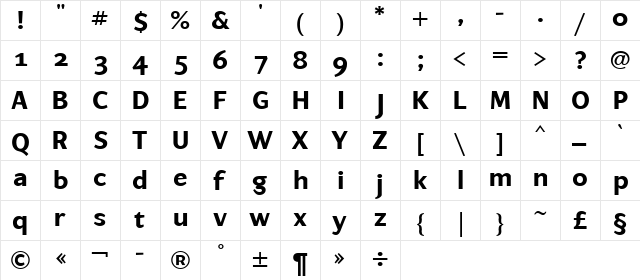
ArtemiusSans SN TT Bold
Design Context for ArtemiusSans SN TT Typeface
ArtemiusSans SN TT offers clean, dependable letterforms without strong stylistic allegiance, making it a practical choice for designers who need flexibility. Its bold stroke weight gives it real presence on the page.